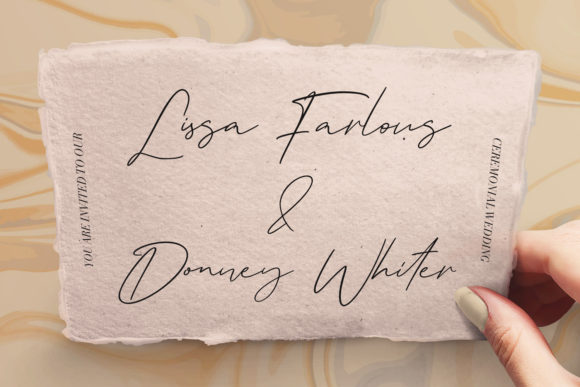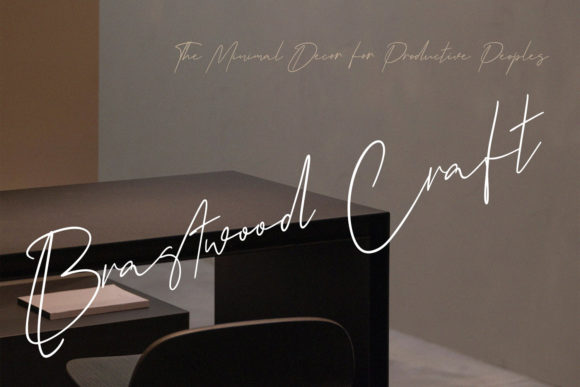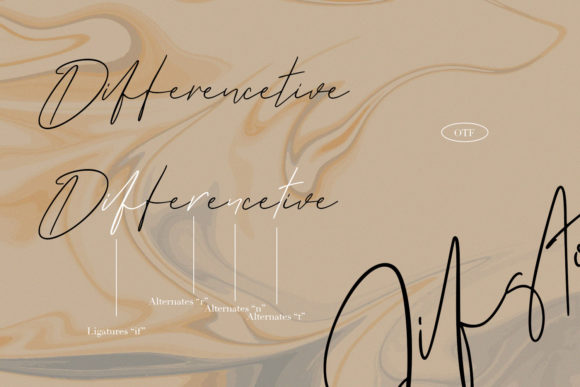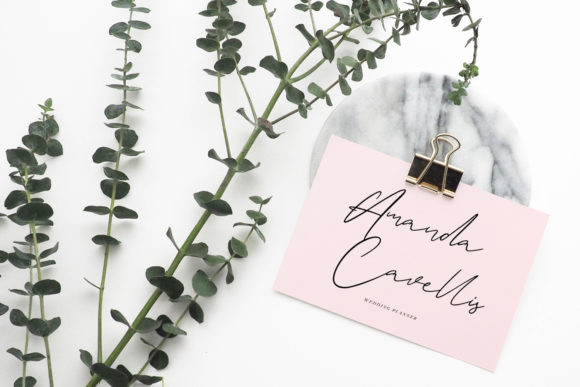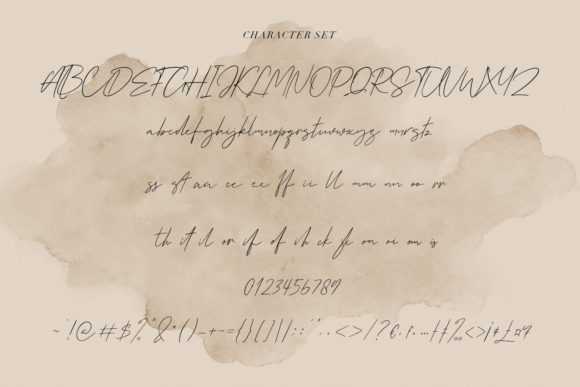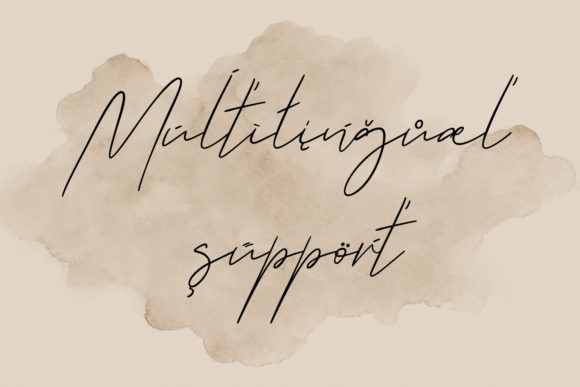
Introduction to Jifstone Font
Remember that moment when you finally find the perfect font for your creative project? The one that elevates your design from ordinary to extraordinary? For designers, discovering a high-quality font like Jifstone Font can be a game-changer. This stylish script font has been making waves in the design community with its elegant and modern look.
Whether you’re working on a logo, branding, invitation, or social media post, Jifstone Font is an excellent choice. Its versatility and sophistication make it a valuable resource for designers. And the best part? You can download it for free, making it an accessible design resource for creatives of all levels.
With its transparent background and sleek design, Jifstone Font is perfect for adding a touch of sophistication to your next creative project. So, let’s dive into the world of Jifstone Font and explore its many possibilities.
Key Features of Jifstone Font
- Features a unique, modern design with a transparent background, allowing for versatile usage in digital designs.
- Comes in a single font size, making it easy to integrate into various design elements.
- Perfect for designers and artists working on creative projects, such as graphics, logos, and typography.
Honest Review: Jifstone Font
I recently came across the Jifstone Font, and I was intrigued by its unique design and high quality. As a designer, I appreciate fonts that can elevate a creative project and give it a personal touch. The Jifstone Font is a great addition to any design resource, and it’s available for free download, which is always a bonus.
One of the standout features of the Jifstone Font is its transparent background, which makes it easy to work with and allows for seamless integration into any design.
- High-quality design that adds a personal touch to any project
- May not be suitable for formal or professional projects due to its playful design
- Limited character set and language support
- May require additional styling to achieve desired results
Overall, I think the Jifstone Font is a great resource for designers who want to add a bit of whimsy and personality to their projects. With its high-quality design and transparent background, it’s a great addition to any design resource. However, it may not be suitable for all projects, so be sure to use it judiciously.
The Jifstone Font is ideal for a variety of creative projects, including logos, business cards, and brochures. Its high-quality design and transparent background make it perfect for overlaying on images and backgrounds.
To get the most out of the Jifstone Font, experiment with different font sizes, colors, and styles to create unique and visually appealing designs. You can also combine the font with other design elements to create a cohesive and professional look.